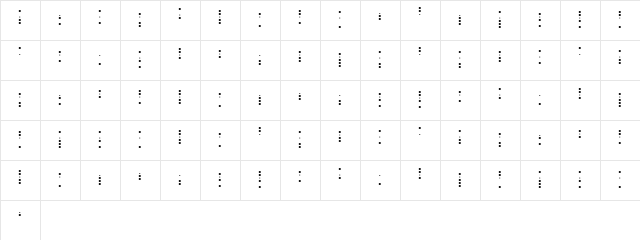
Baudot 5 Baudot 5
Design Context for Baudot 5 Typeface
Baudot 5 is rooted in pixel-grid construction, making it a natural fit for game UI, retro computing aesthetics, and digital nostalgia projects.
A natural choice for retro game titles, chiptune music branding, 8-bit UI, and digital nostalgia projects.